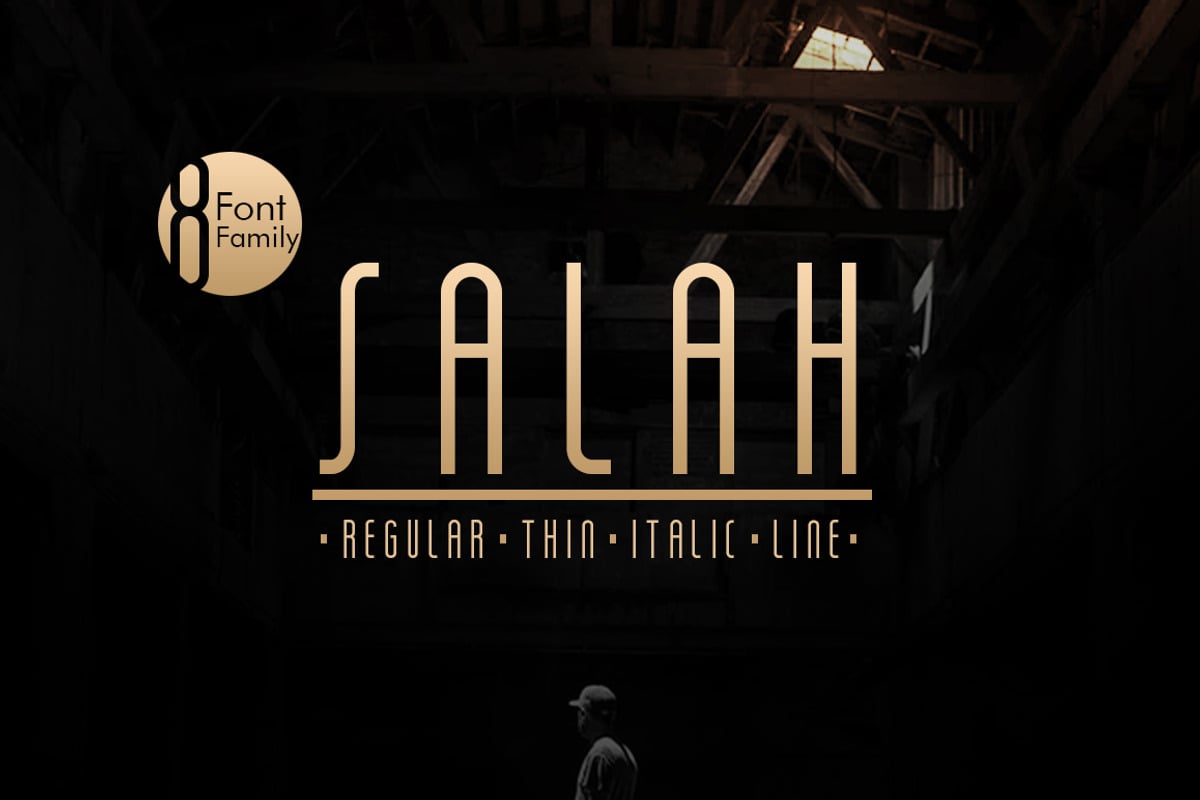
Salah Sans Serif 8 Font Family
Elevate your designs with Salah - an elegant and charming sans-serif typeface that perfectly balances modern sophistication with gorgeous appeal. This comprehensive font family offers 8 distinct styles to enhance your creative projects. From sleek regular weights to delicate thin variations, plus unique line styles, Salah provides the versatility you need for any design challenge. Perfect applications include: Posters and large-scale artwork Logo and brand identity design Magazine layouts and ed...